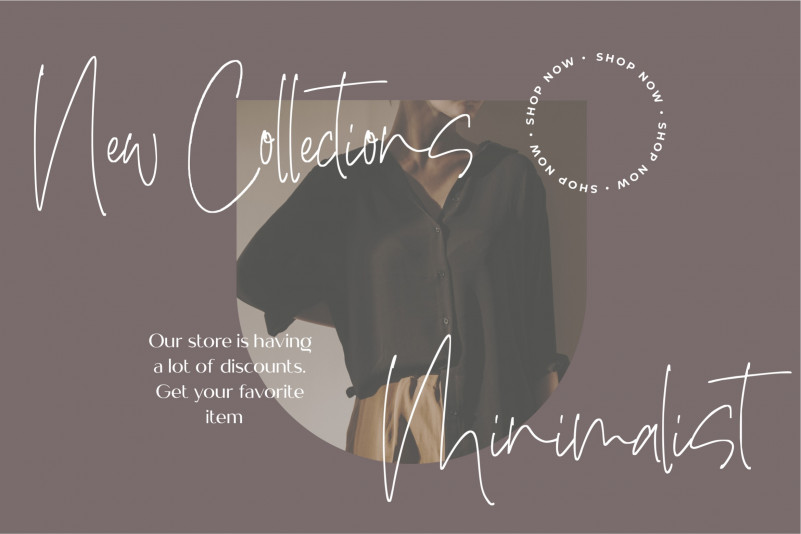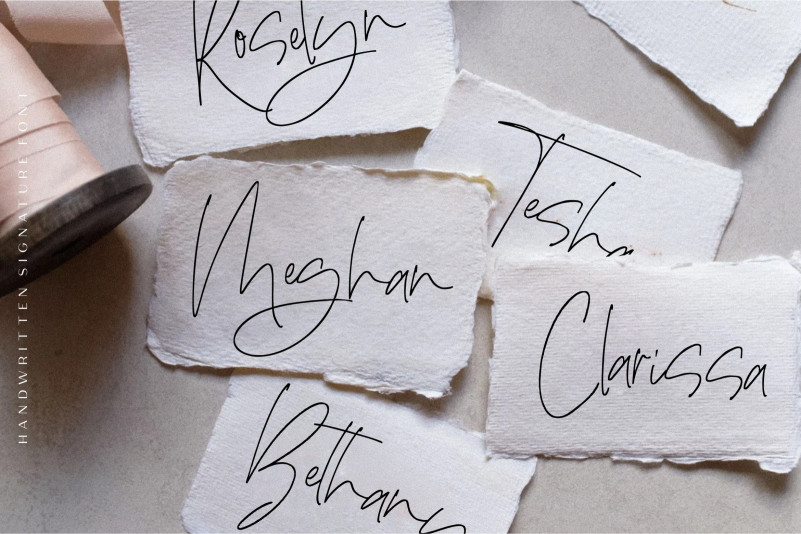
Majestika Clean Brush Script Font
Majestika Clean Brush Script Font is a beautiful modern calligraphy which is suitable for you who needs a typeface for headline, logotype, apparel, invitation, branding, packaging, advertising etc.
This typeface is comes in uppercase, lowercase, punctuations, symbols & numerals, stylistic set alternate, ligatures, etc also support multilingual and already PUA encoded.